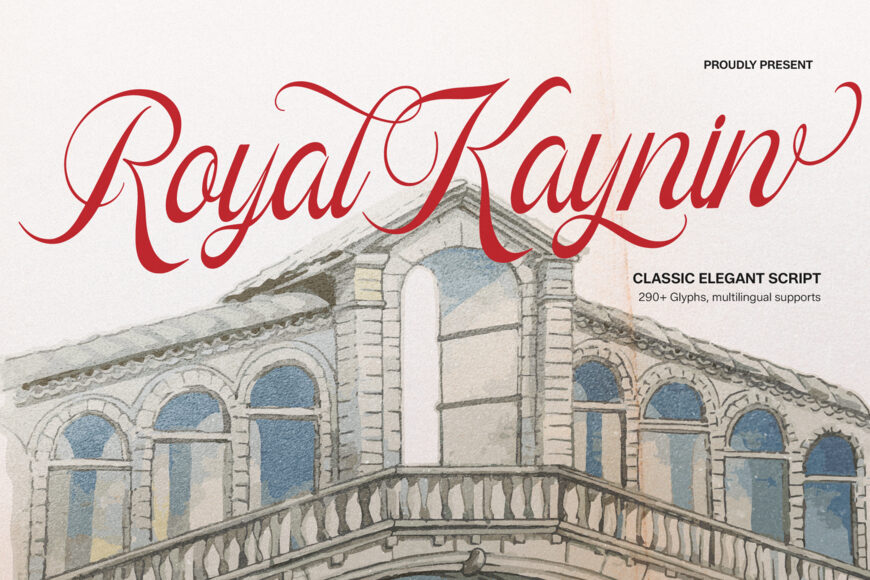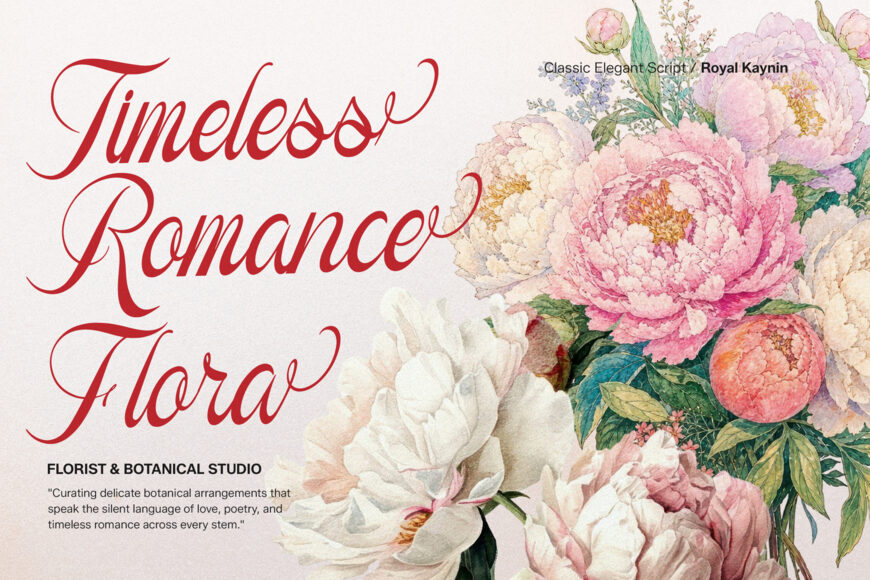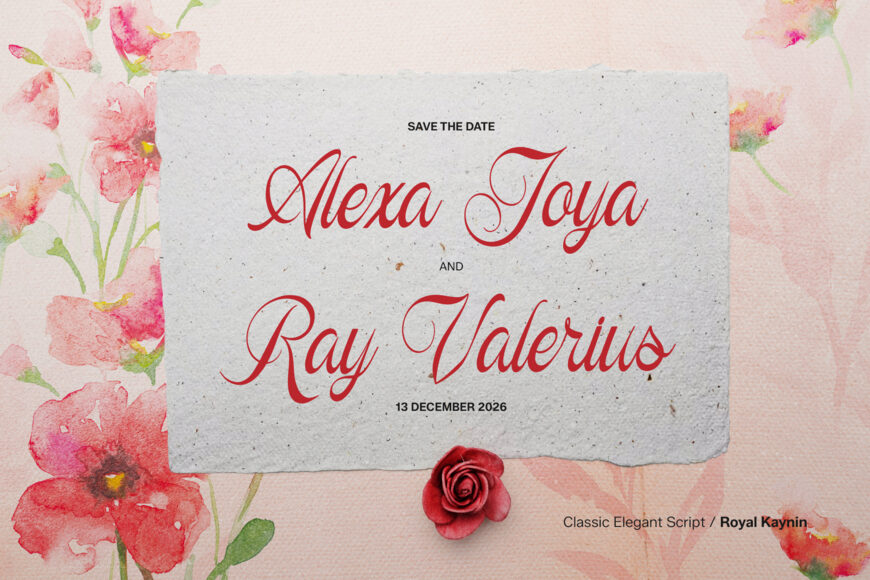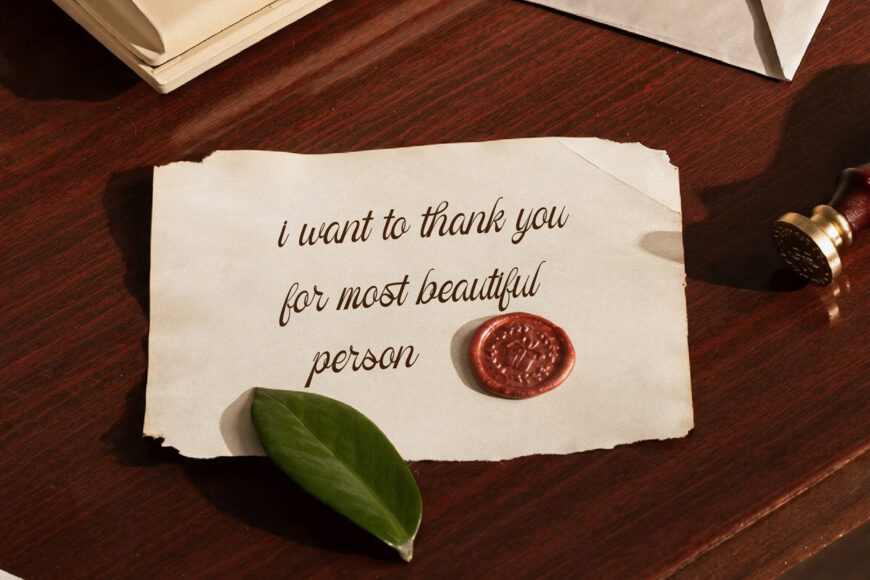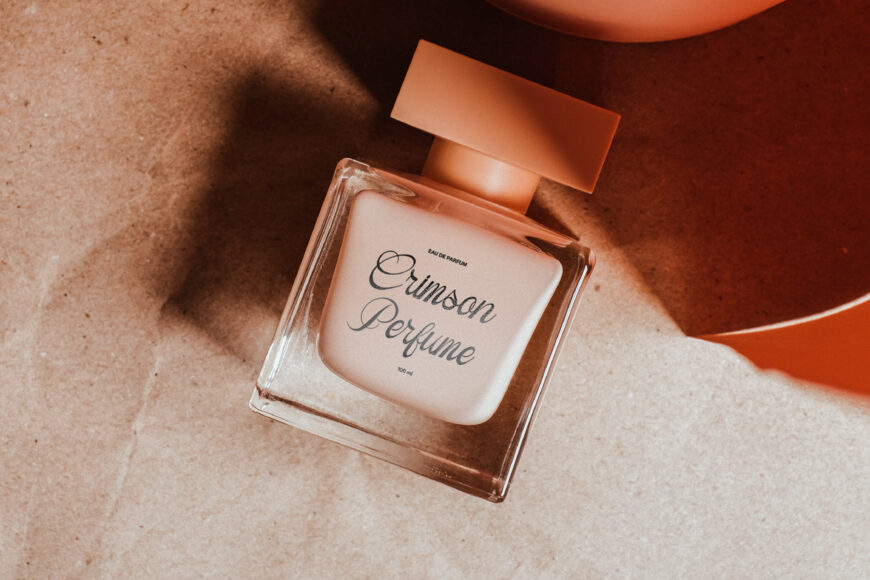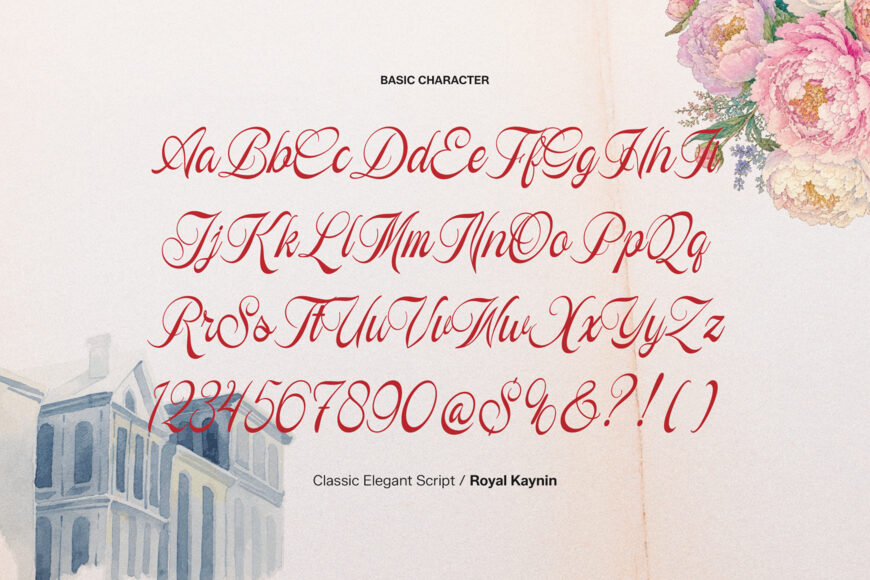
Exude aristocratic sophistication, timeless romance, and royal calligraphy grace with Royal Kaynin! Crafted as a classic elegant script font, Royal Kaynin combines high-contrast copperplate-style stems with sweeping loops and delicate flourish extensions. Its fluid posture brings instant prestige and luxury appeal to headlines.
Ideal for formal wedding invitations, luxury brand packaging, high-end monogram logos, wine labels, editorial covers, certificate headers, and custom Cricut or Silhouette craft SVG projects!